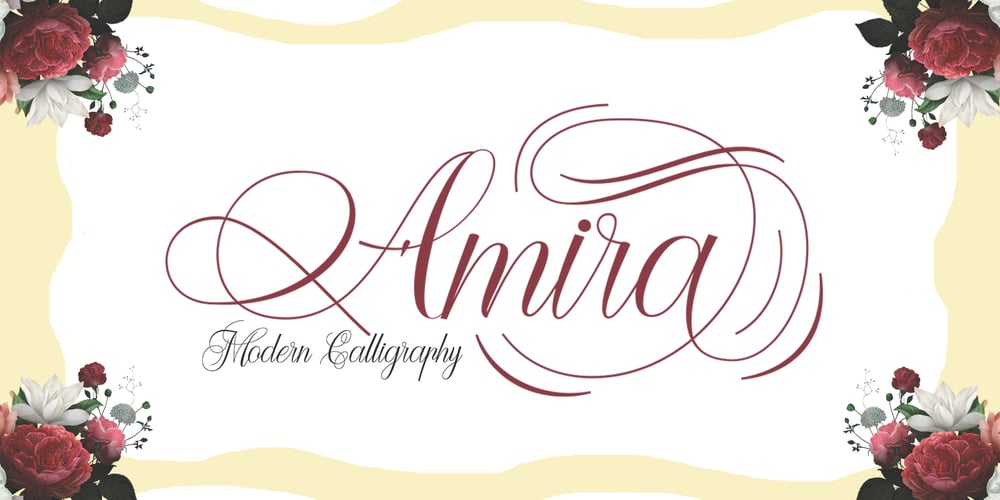
Amira
Amira font
Amira Font Family was designed by Rahmad Rizky and published by Rhd Studio. Amira contains 1 styles and family package options. Amira Script with a modern calligraphy type font, I hope you are interested in this font, if you want to use it for your work, this font can be used easily and simply because there are many features in it containing a complete set of uppercase and lowercase letters, various kinds of punctuation. , numbers, and multilingual support. This font also contains several ligatures and alternative Style Stylistic Sets for those of you who have software capable of running OpenType (Photoshop / Illustrator / InDesign).what is included: